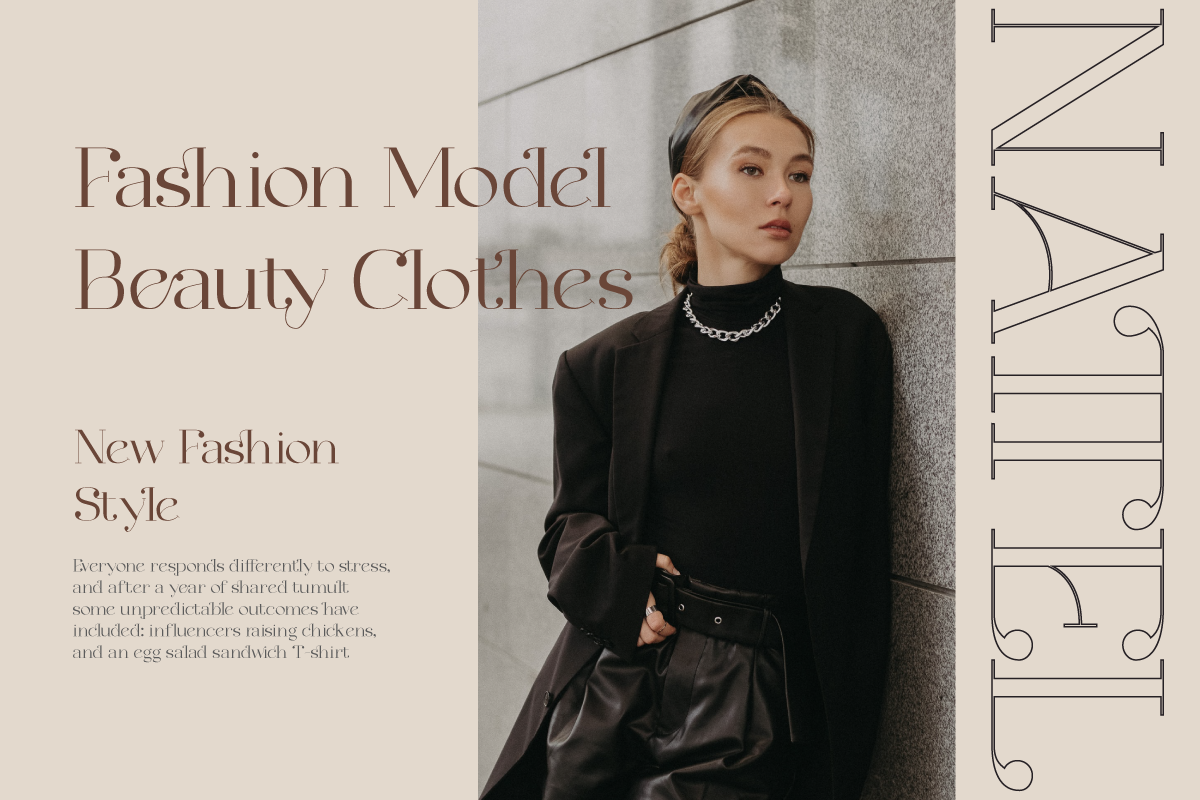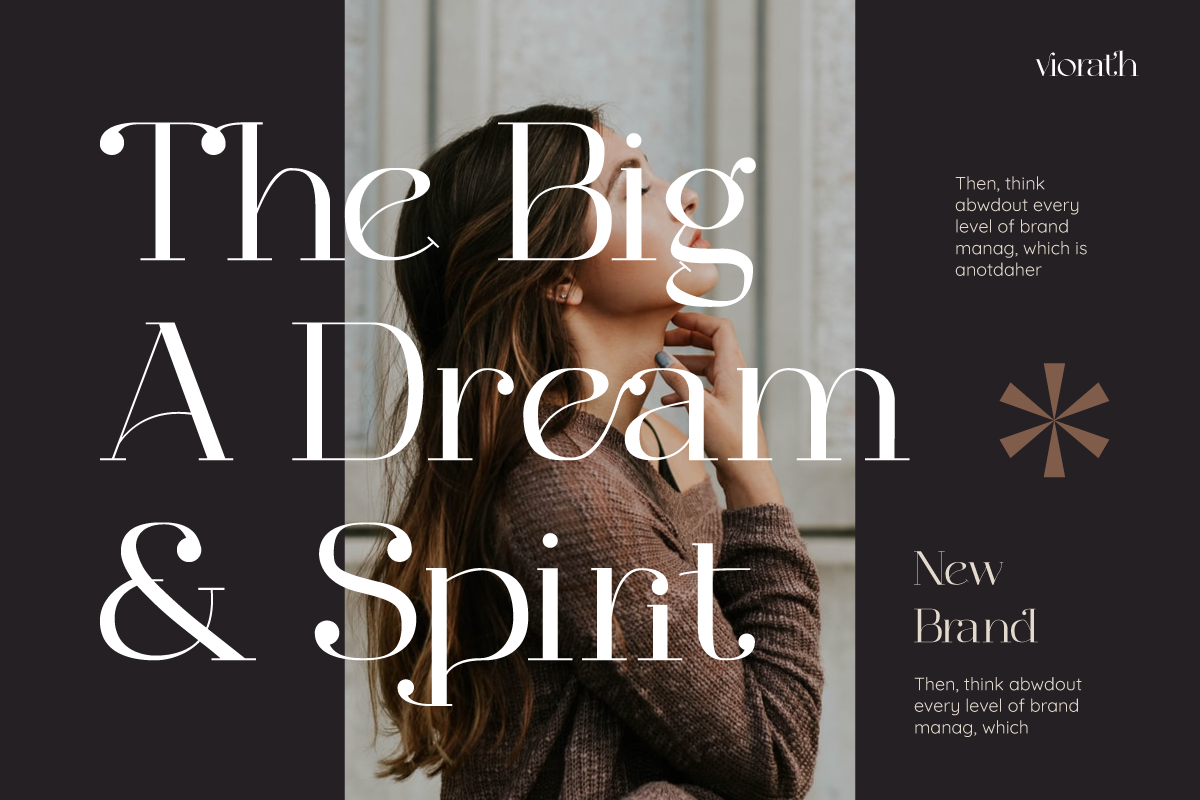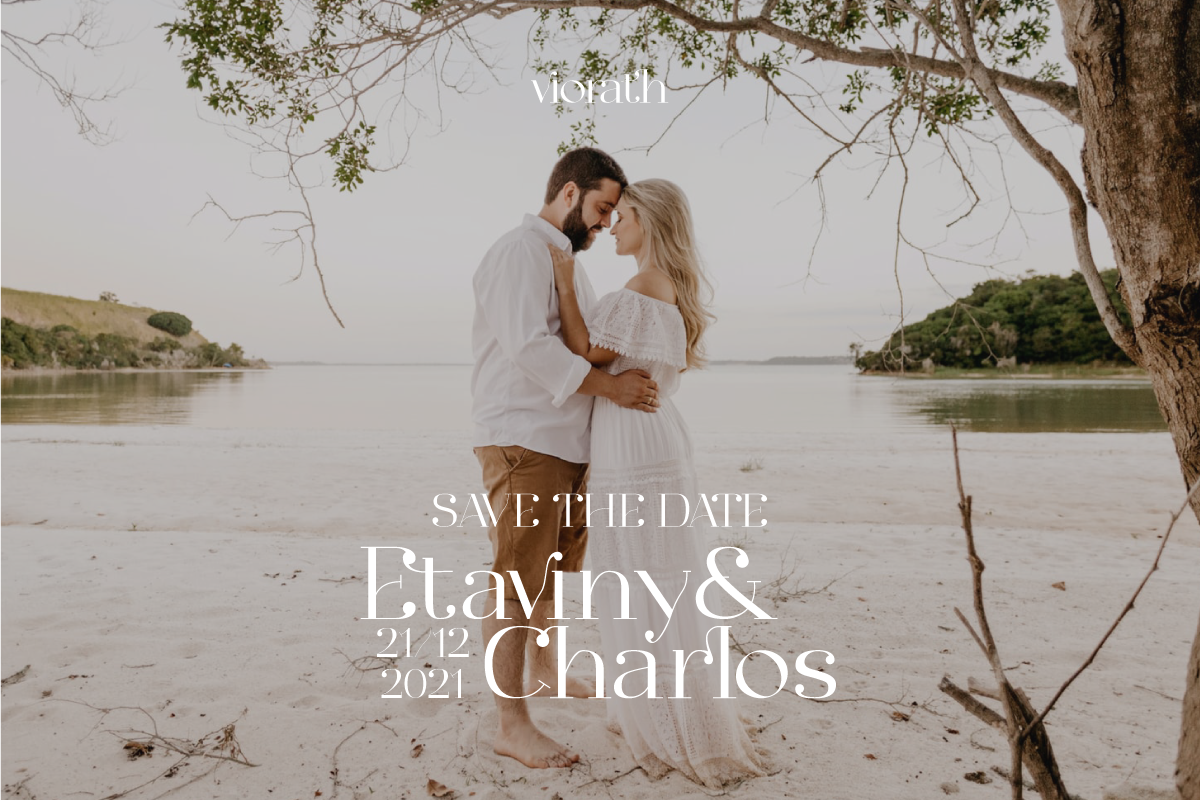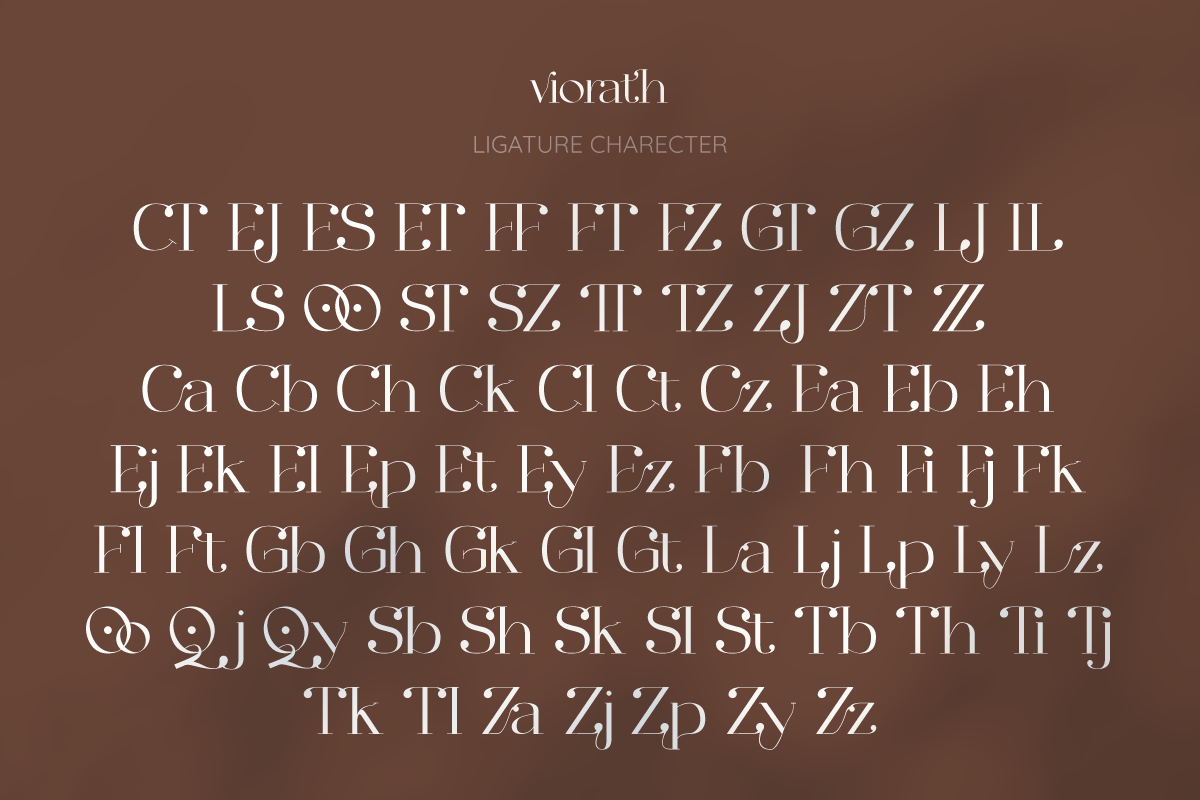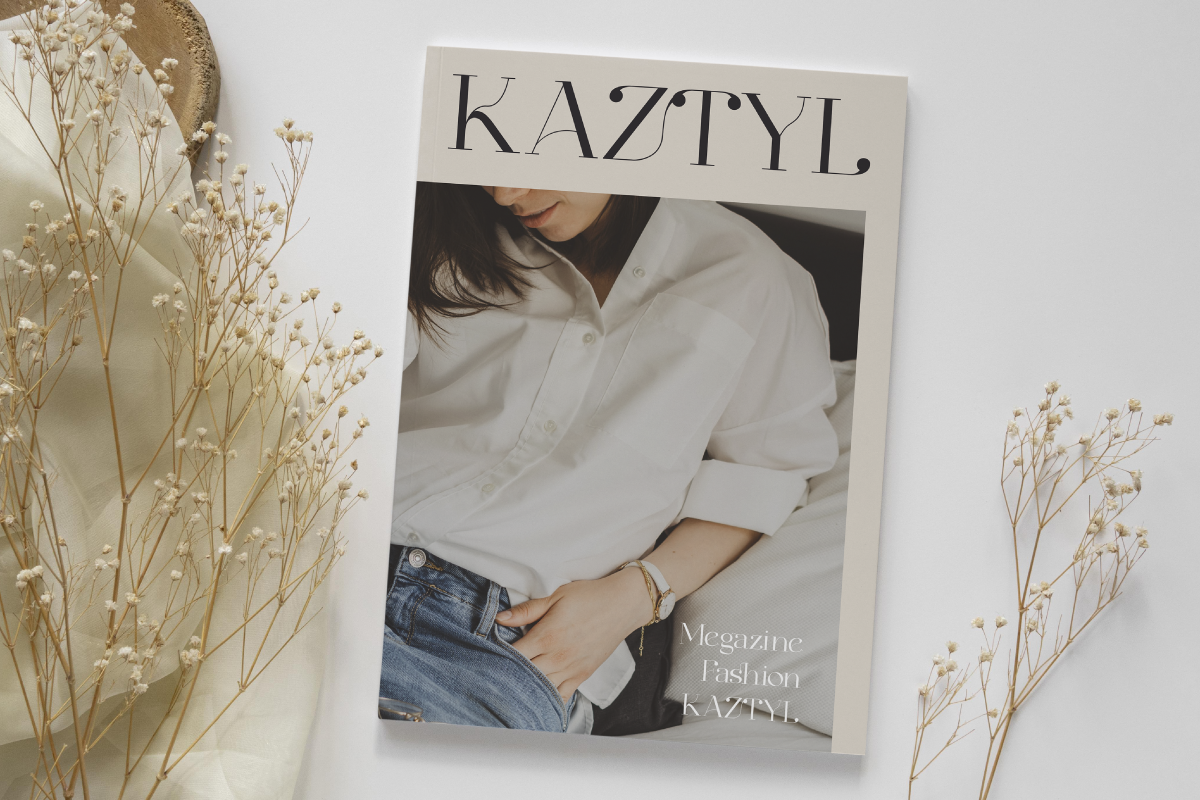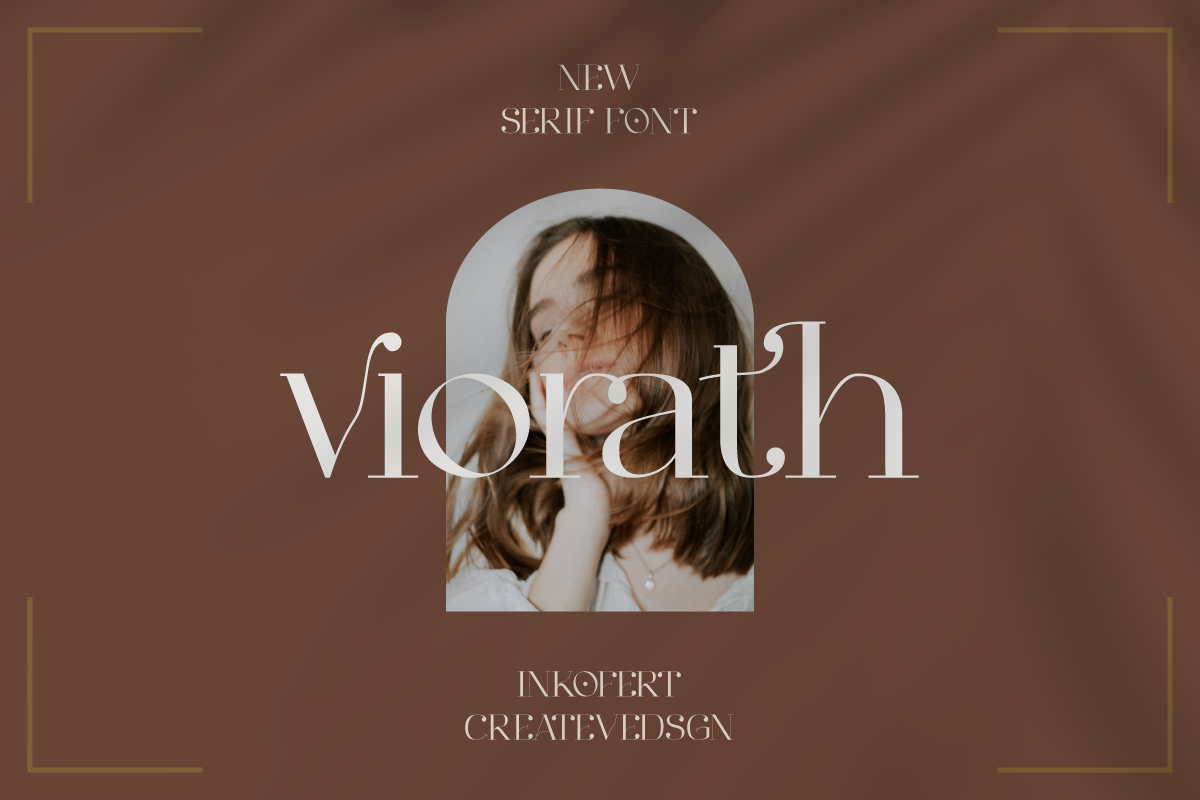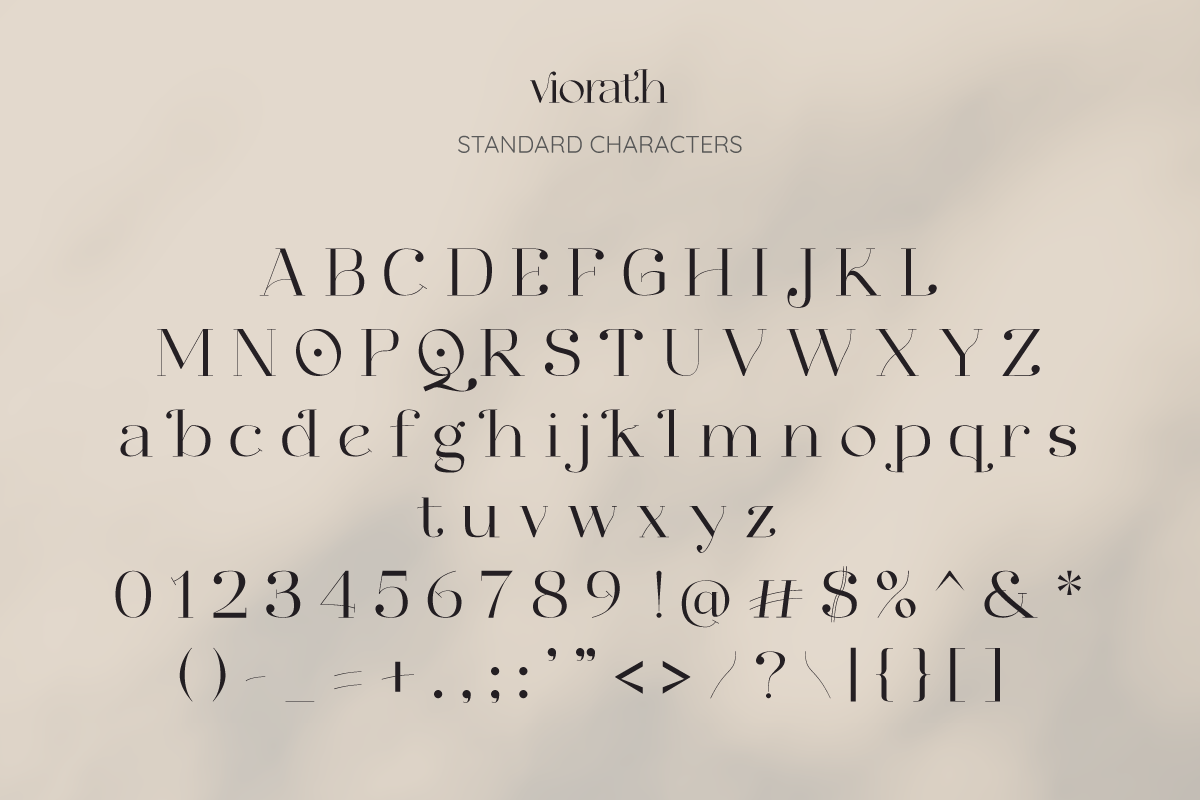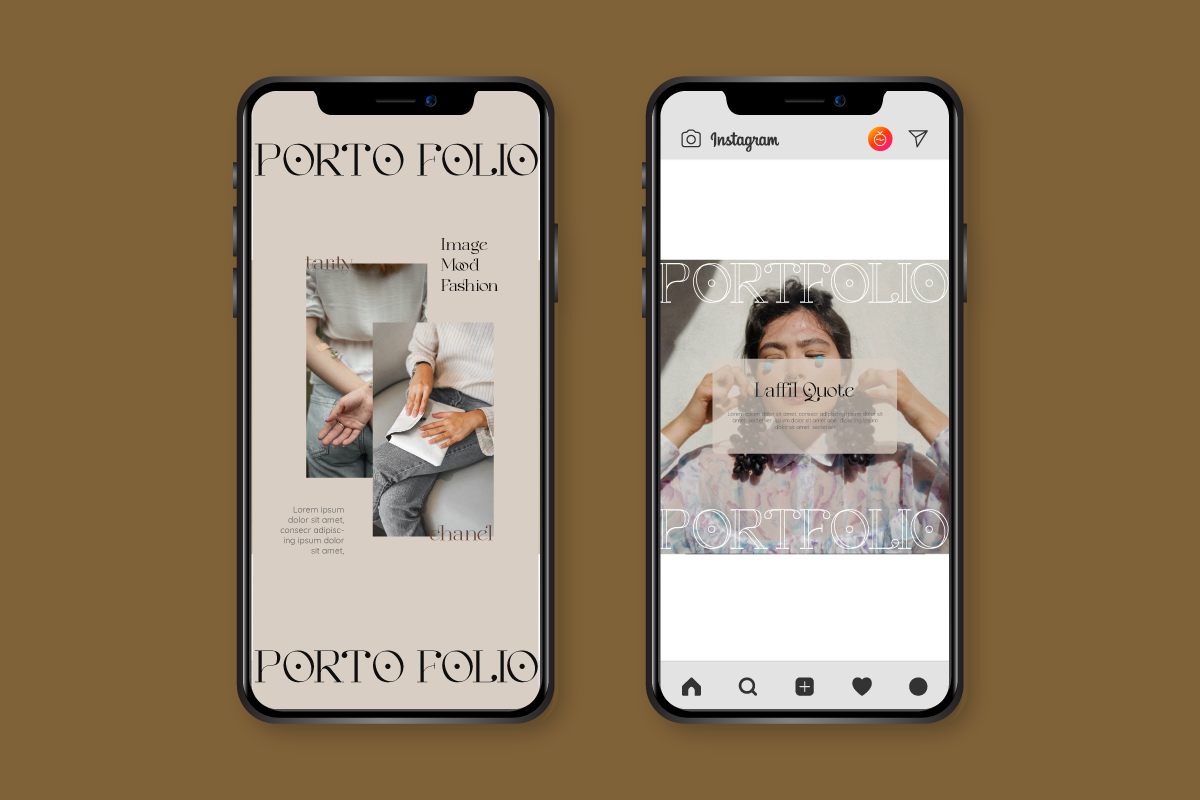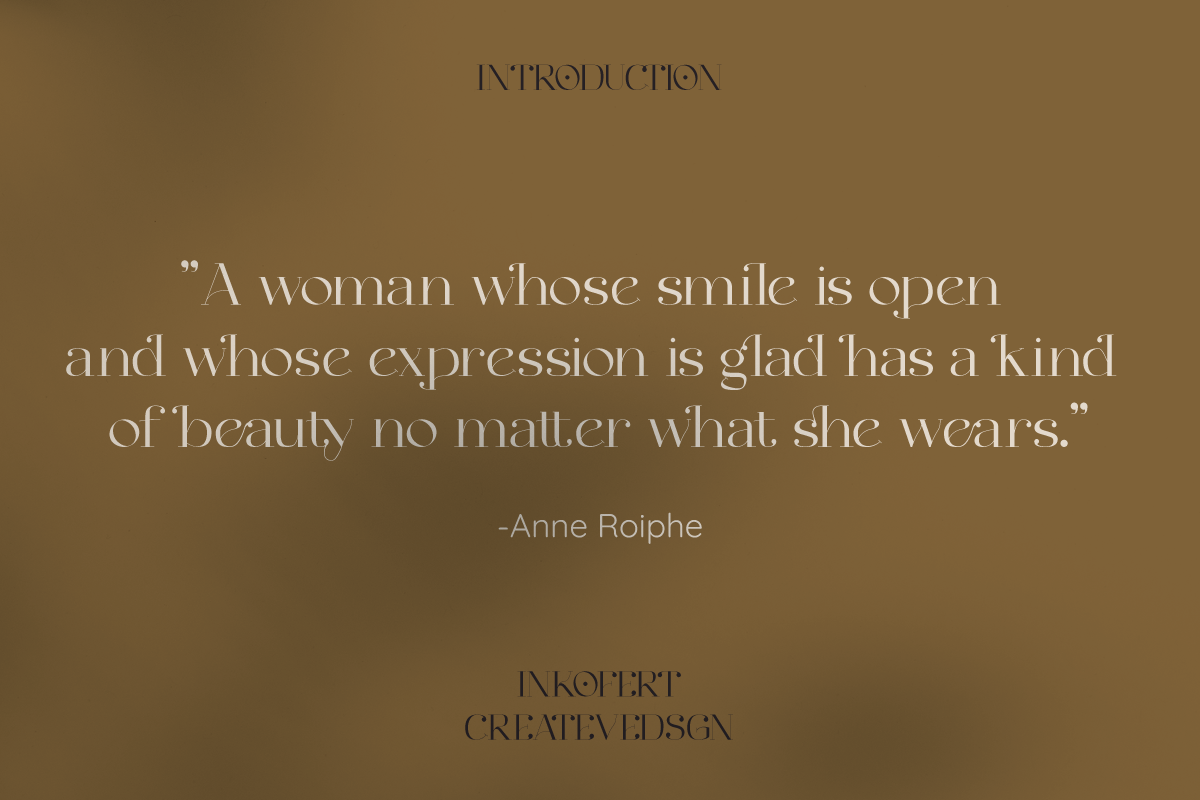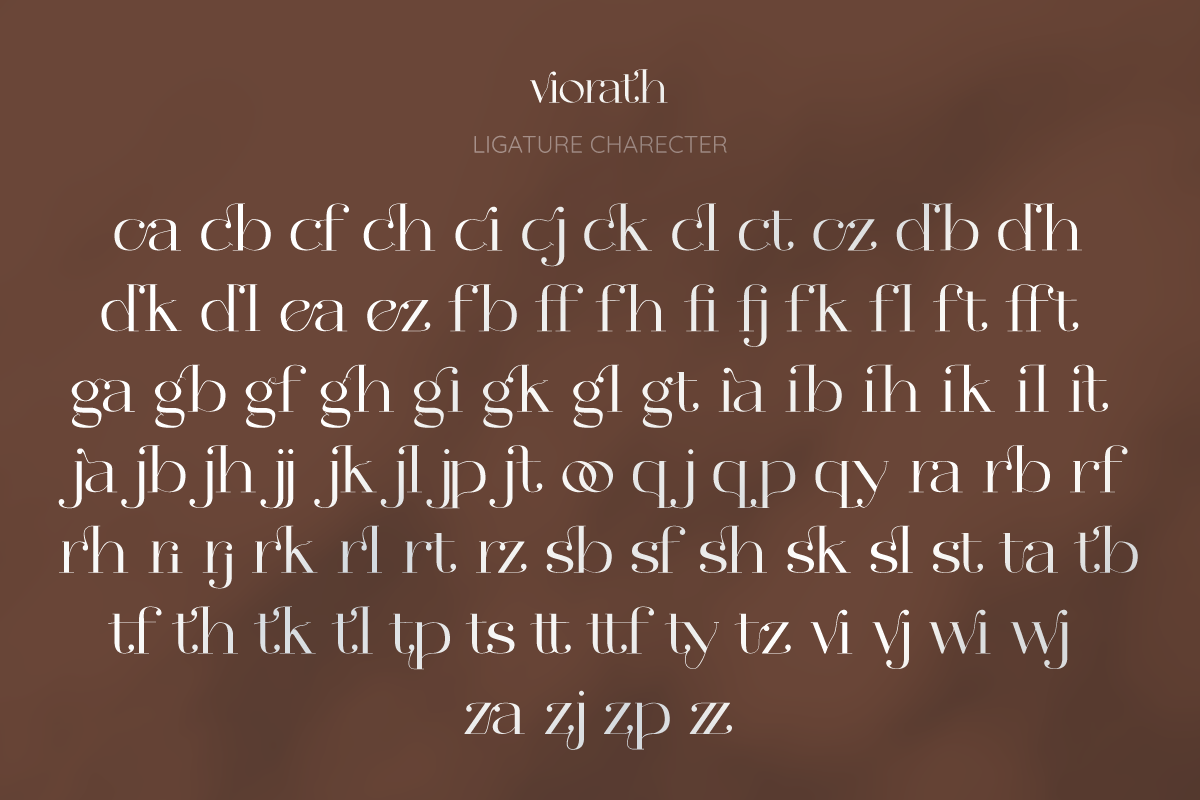
Viorath Modern Serif Font
Viorath Modern Serif Font a modern-style serif font with ligatures that create stunning logos, quotes, posts, blog posts. branding projects, magazine imagery, wedding invitations, presentation, social media and much more.